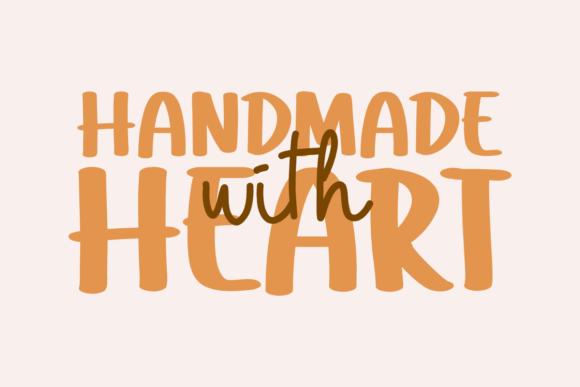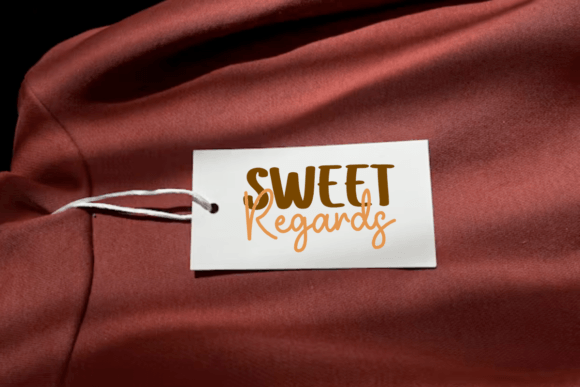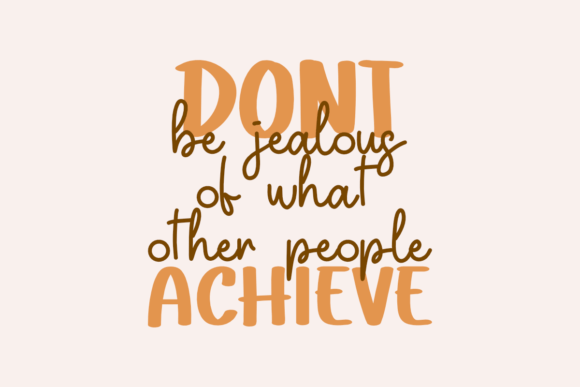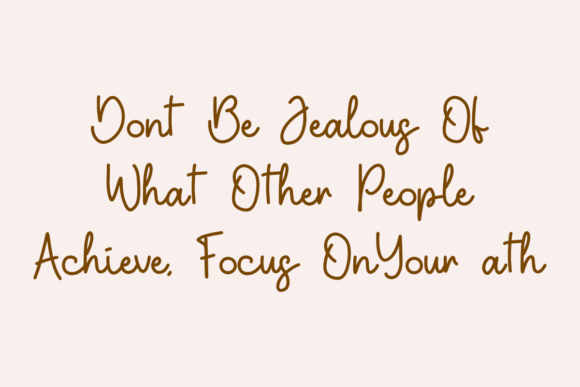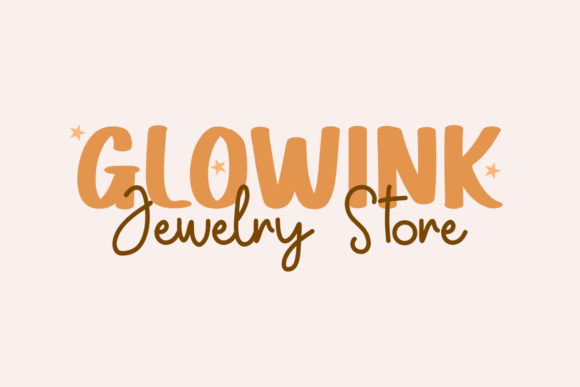
Introduction to Simple Monday Duo Font
Simple Monday Duo is a handwriting duo font.
this is very cute and adorable This font is inspired by typography in crafts.
Key Features of Simple Monday Duo Font